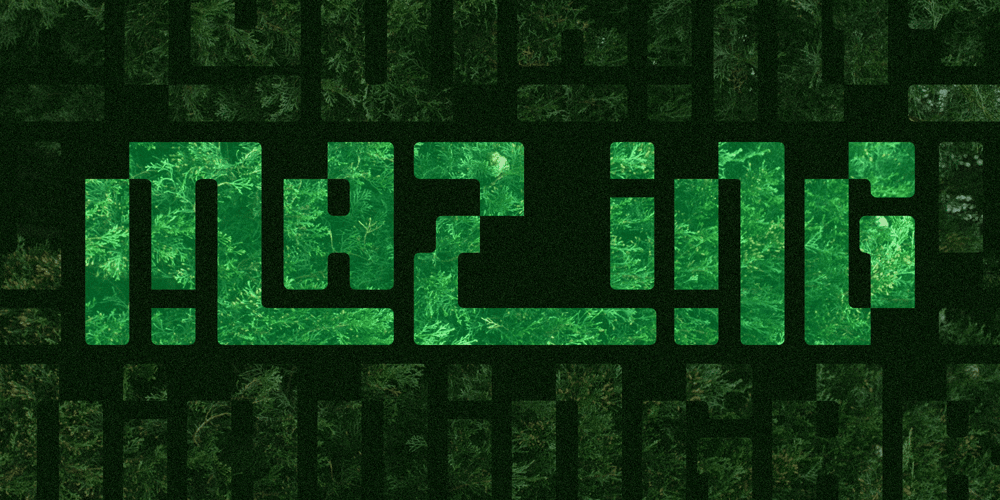
MaZing
MaZing font
MaZing Font Family was designed by Michael Kovacevich and published by MKGD. MaZing contains 1 styles and family package options. MaZing is a font that makes customized pairing between glyphs incredibly simple. With the flourishes of certain glyphs extending out, and other glyphs kerned into them, you can mix and match a variety of vowels and consonants simply by toggling between the upper and lower case versions of letters. The vowels, plus the letter y, contain both regular and nested versions, while most of the consonants contain both regular as well as swashed versions. Try playing around with some sample text and see for yourself – No special keyboard functions required!Mazing has a glyph count of 388 and supports the following languagesAfrikaans, Albanian, Asu, Basque, Bemba, Bena, Bosnian, Catalan, Cebuano, Chiga, Colognian, Cornish, Corsican, Croatian, Czech, Danish, Embu, English, Esperanto, Estonian, Faroese, Filipino, Finnish, French, Friulian, Galician, German, Gusii, Hungarian, Icelandic, Ido, Indonesian, Interlingua, Irish, Italian, Javanese, Jju, Kabuverdianu, Kalaallisut, Kalenjin, Kamba, Kikuyu, Kinyarwanda, Kurdish, Latvian, Lithuanian, Lojban, Low German, Lower Sorbian, Luo, Luxembourgish, Luyia, Machame, Makhuwa-Meetto, Makonde, Malagasy, Malay, Maltese, Manx, Māori, Mauritian Creole, Meru, North Ndebele, Northern Sotho, Norwegian Bokmål, Norwegian Nynorsk, Nyanja, Nyankole, Occitan, Oromo, Polish, Portuguese, Rejang, Romanian, Romansh, Rombo, Rundi, Rwa, Samburu, Sango, Sangu, Sardinian, Scottish Gaelic, Sena, Shambala, Shona, Slovak, Slovenian, Soga, Somali, South Ndebele, Southern Sotho, Spanish, Sundanese, Swahili, Swati, Swedish, Swiss German, Taita, Taroko, Teso, Tsonga, Tswana, Turkmen, Upper Sorbian, Vunjo, Walloon, Walser, Wolastoqey, Xhosa, Zulu